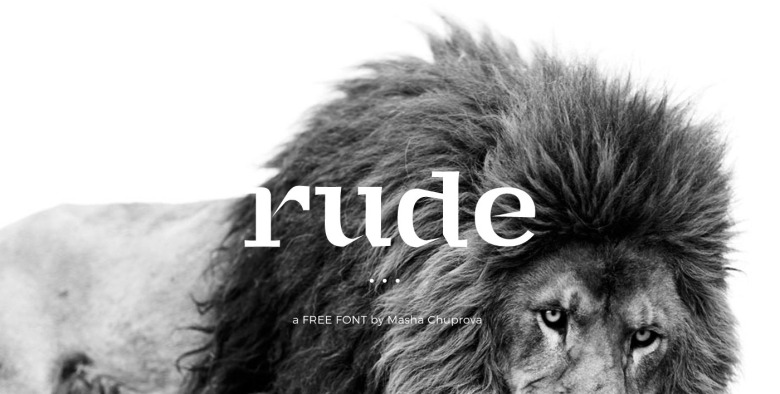
RUDE Font
A free fonts completely new. Introducing RUDE Font! RUDE is a Slab Serif font. Rude Font designed and shared for free by Masha Chuprova., A designer from Irkutsk, Russian Federation. A very fashionable typeface that makes perfect for logo, title, magazine, headline and poster as well.